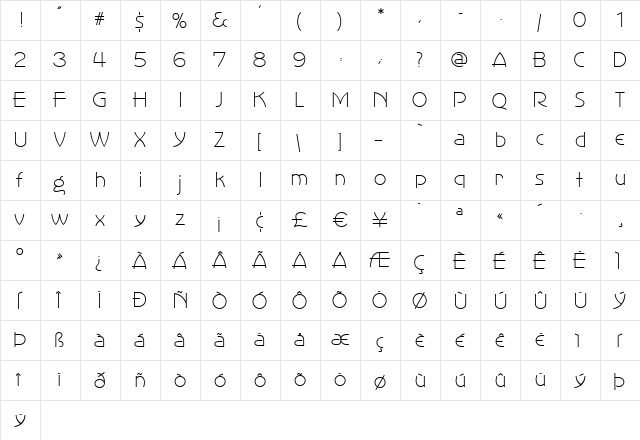
2 Stringline DNA Regular
2 Stringline DNA is a composed and adaptable typeface that performs quietly and consistently across a wide range of design contexts.